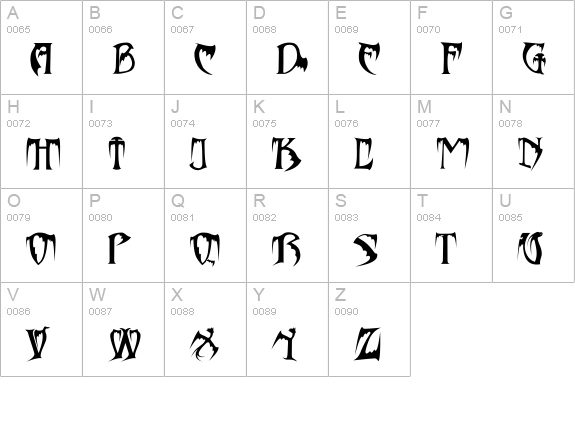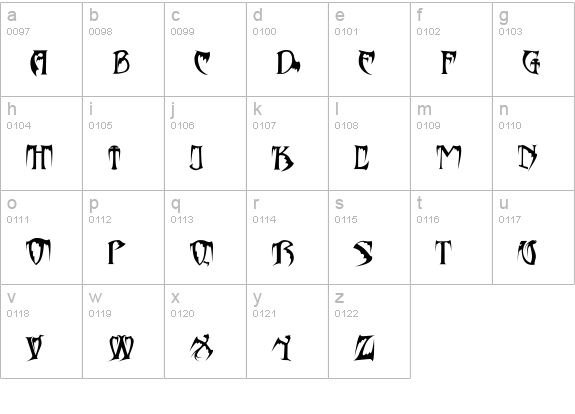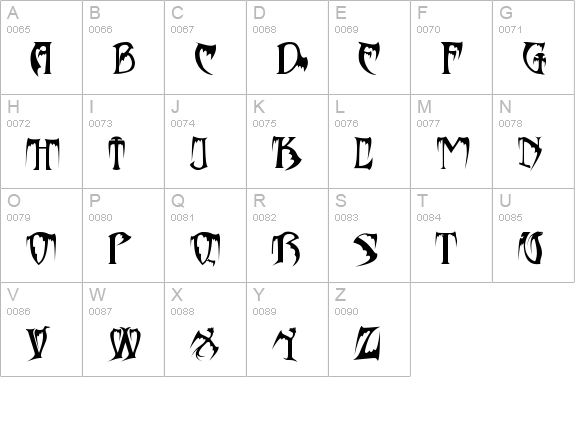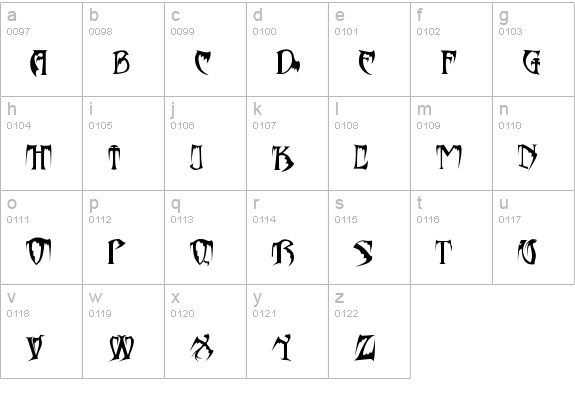
Bats&Dragons-Abaddon Font Details
Bats&Dragons-Abaddon font is a stunning display typeface that combines intricate bat and dragon-inspired elements with a touch of gothic elegance. This unique font is perfect for adding a touch of mystery and fantasy to your projects, whether you're designing posters, book covers, or invitations. What sets Bats&Dragons-Abaddon font apart is its intricate details and striking design, making it a standout choice for anyone looking to make a bold statement. The font's sharp edges and intricate swirls give it a mystical and otherworldly feel that is sure to captivate your audience. Best of all, Bats&Dragons-Abaddon font is completely free to download at FontsMarket.com, making it accessible to all designers and creators looking to add a touch of magic to their work. Don't miss out on this stunning font that will set your designs apart from the rest. Download Bats&Dragons-Abaddon font today and let your creativity soar to new heights!